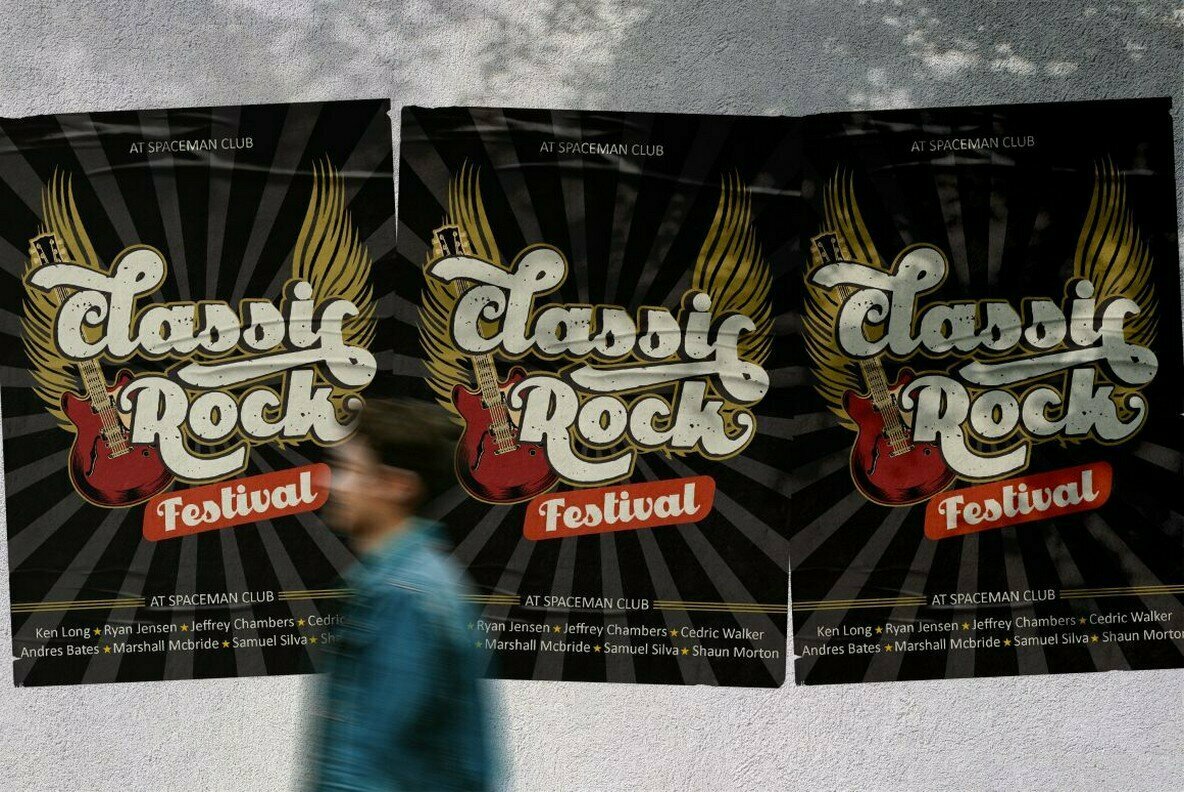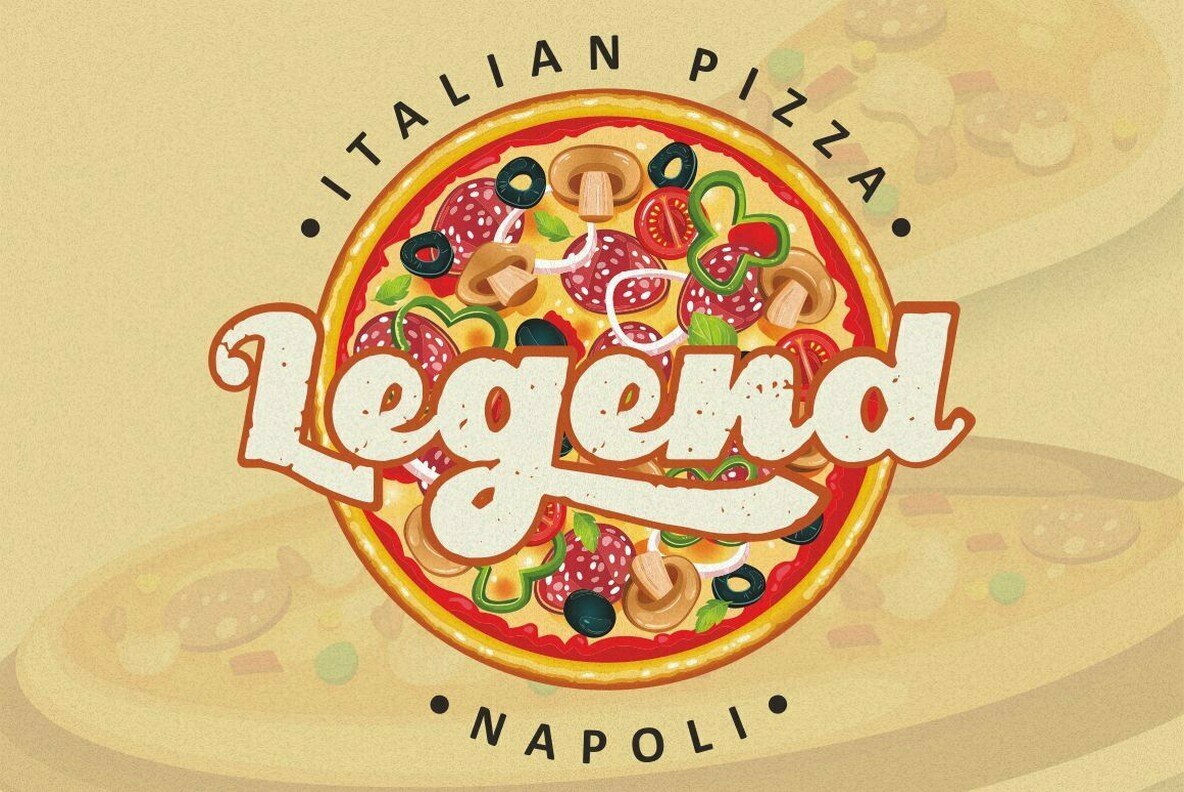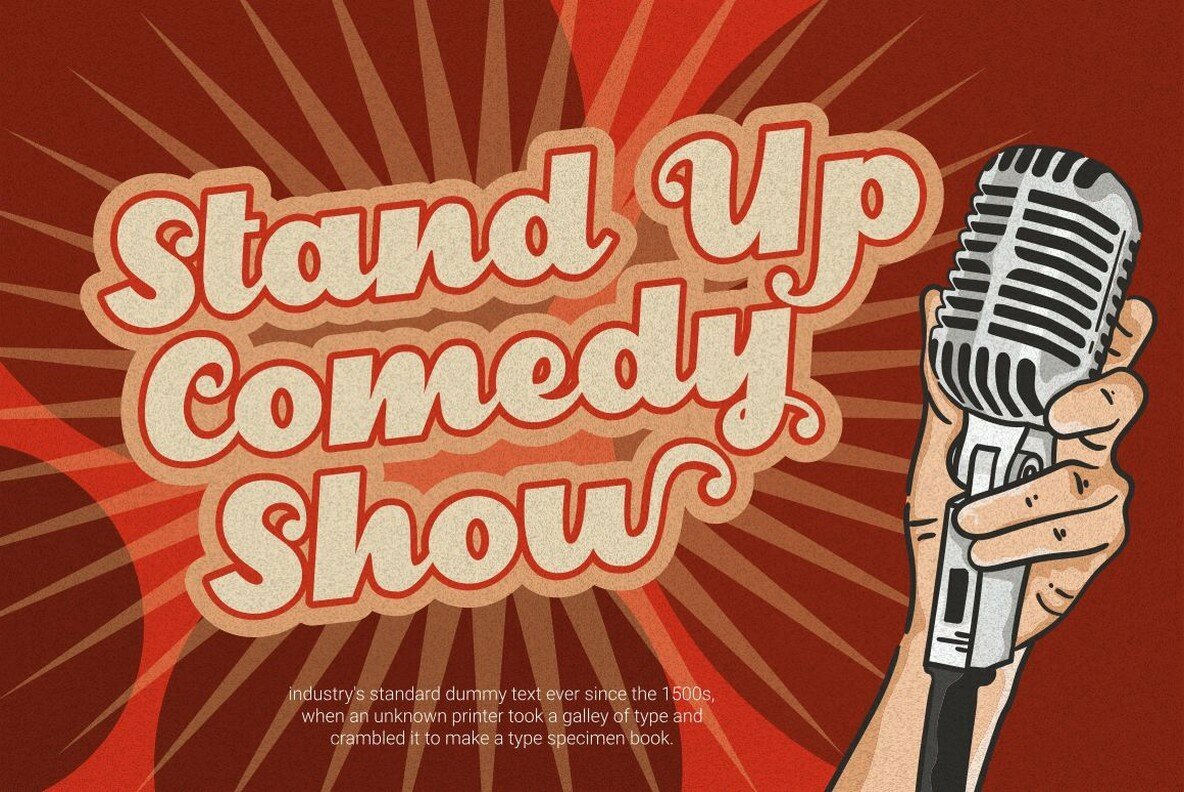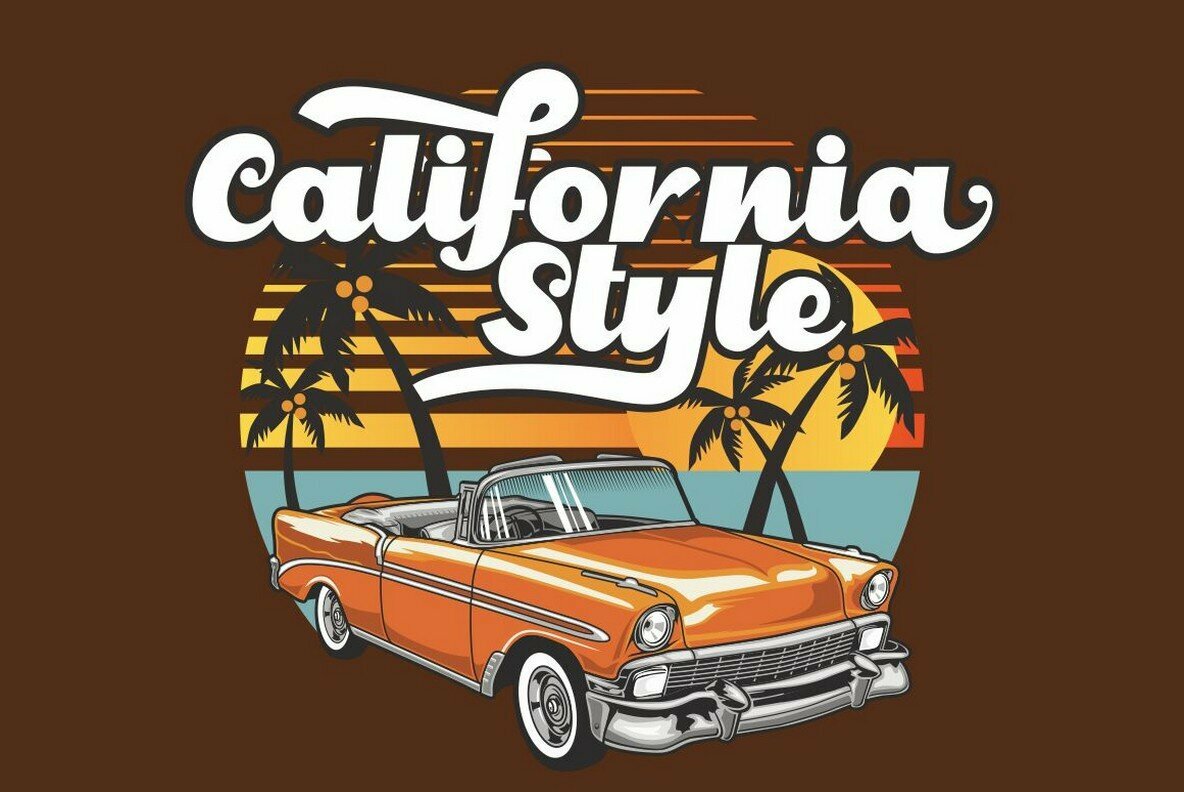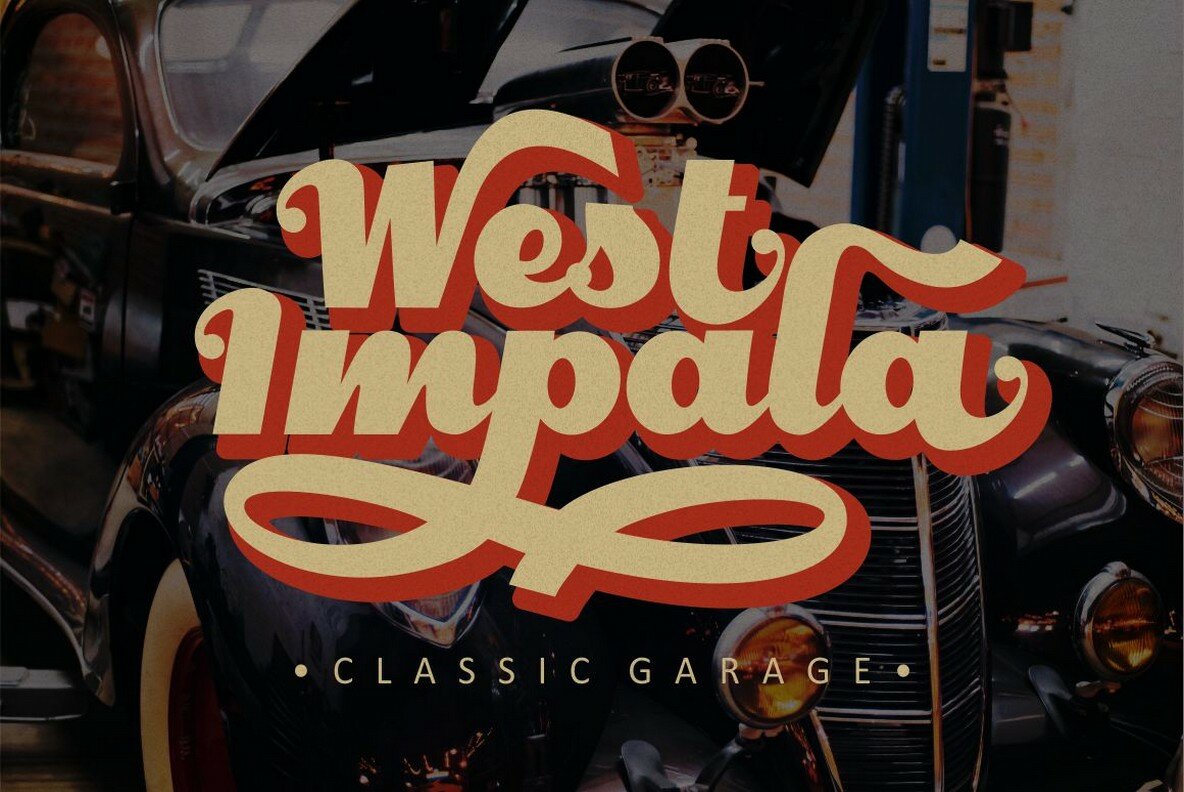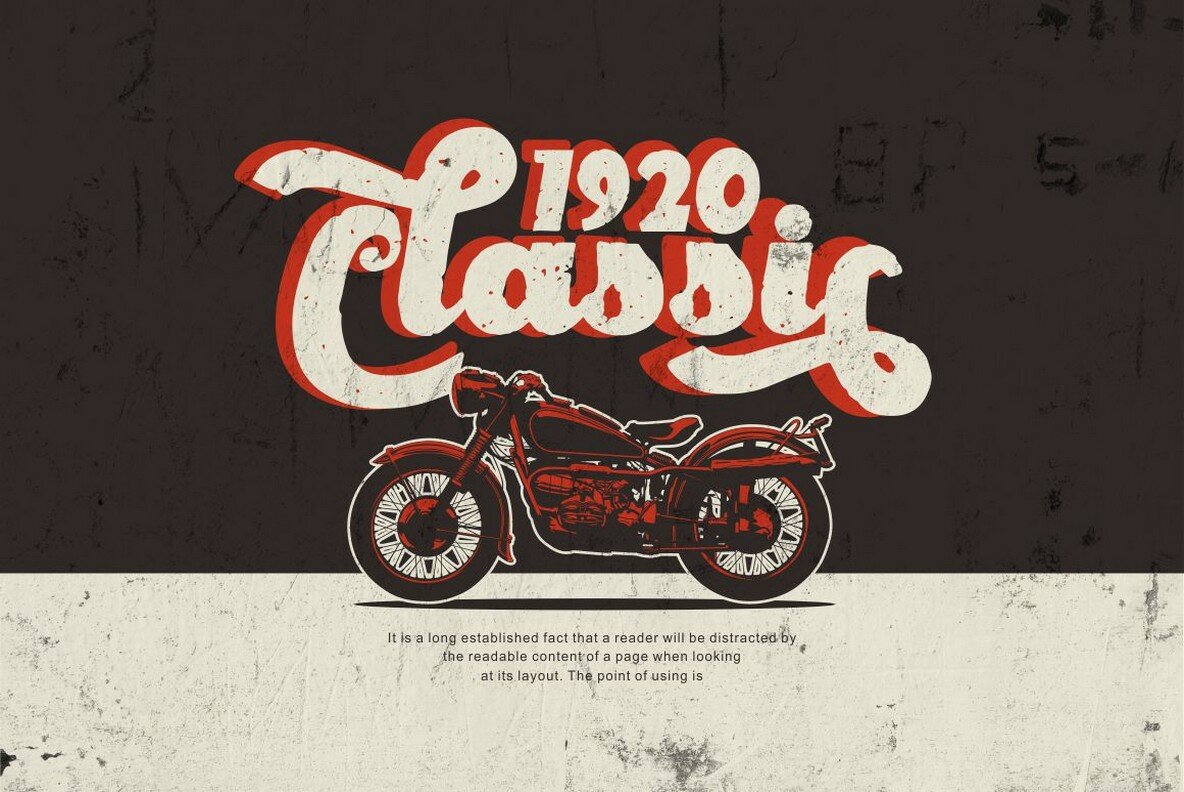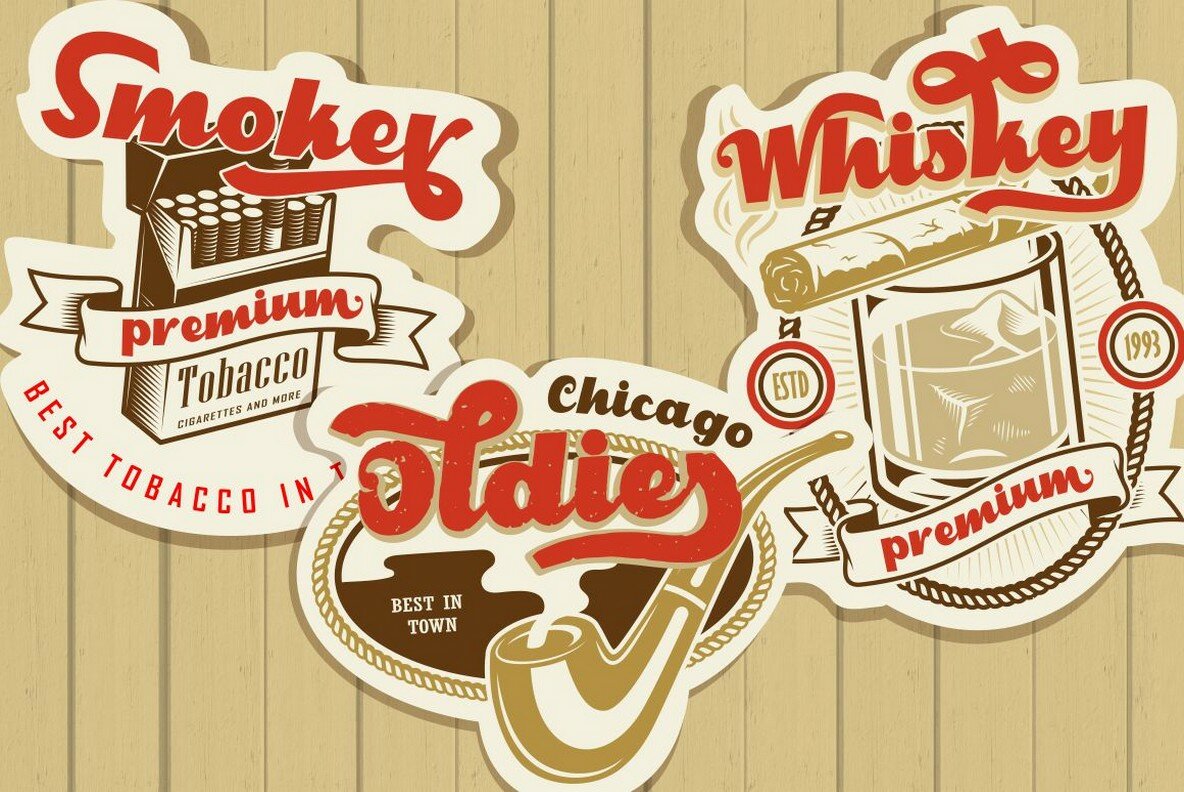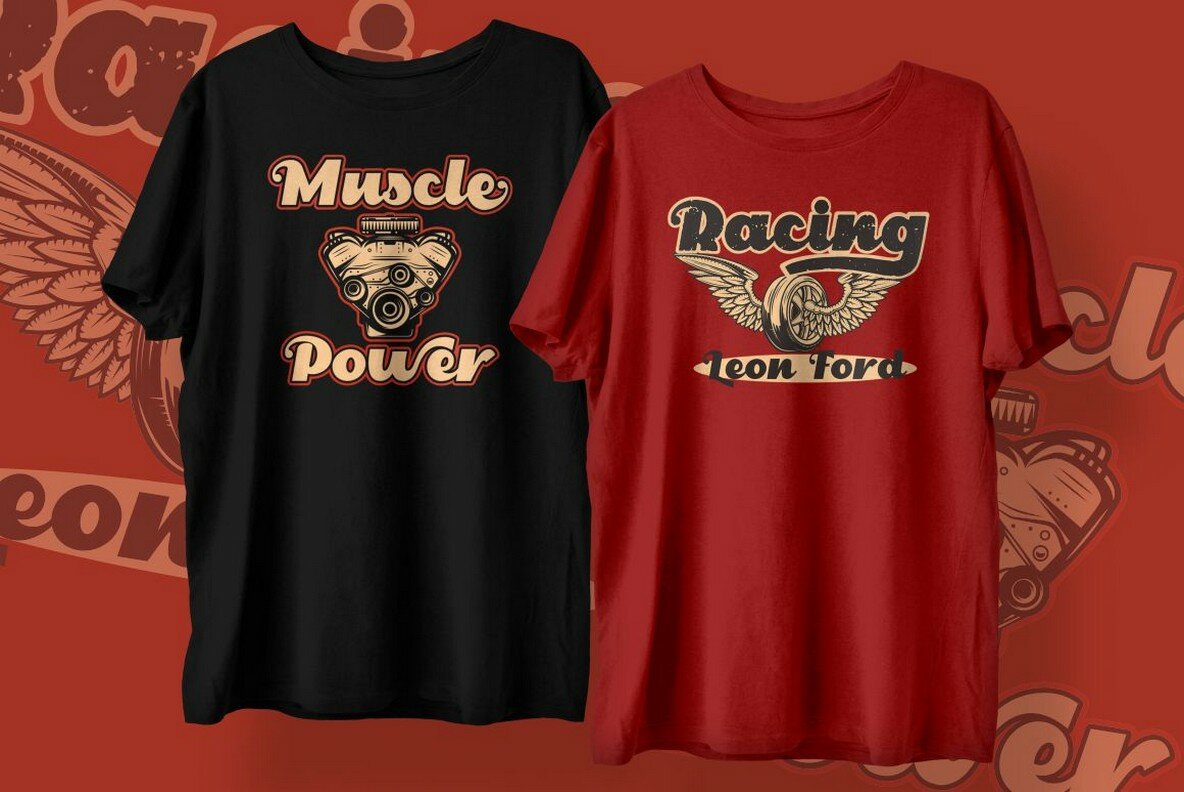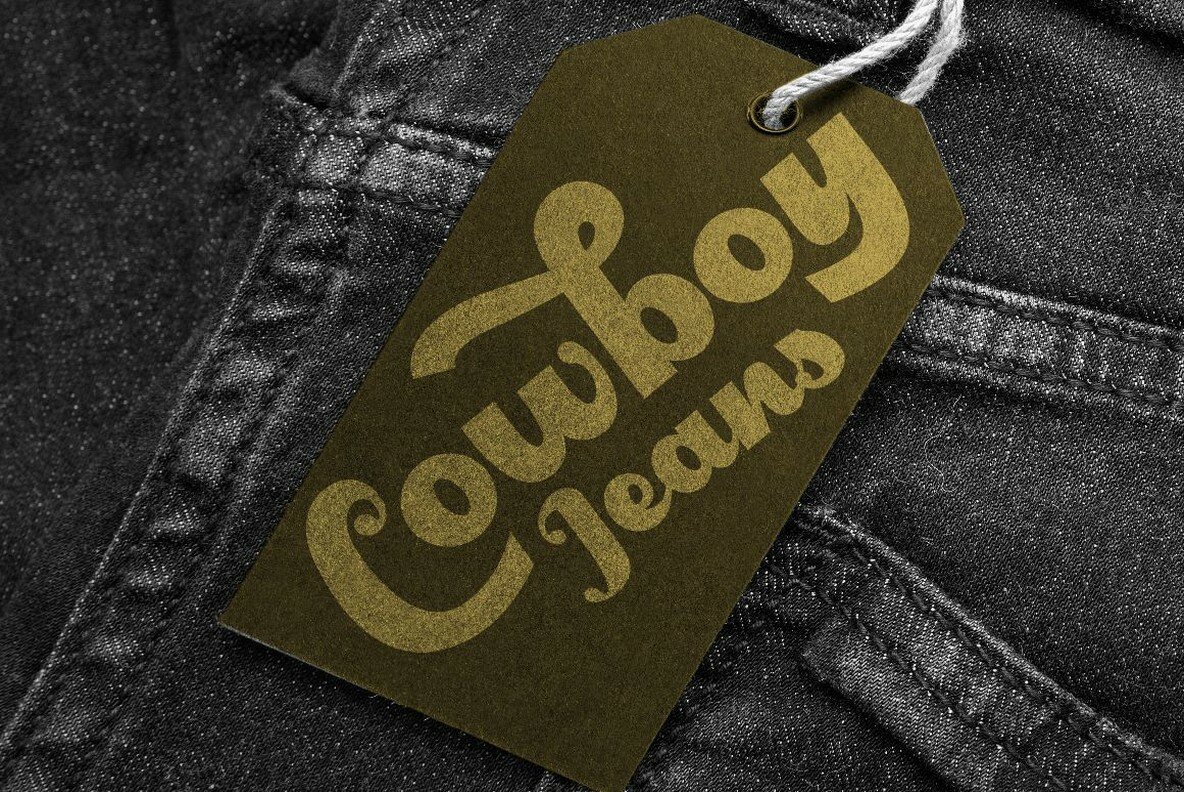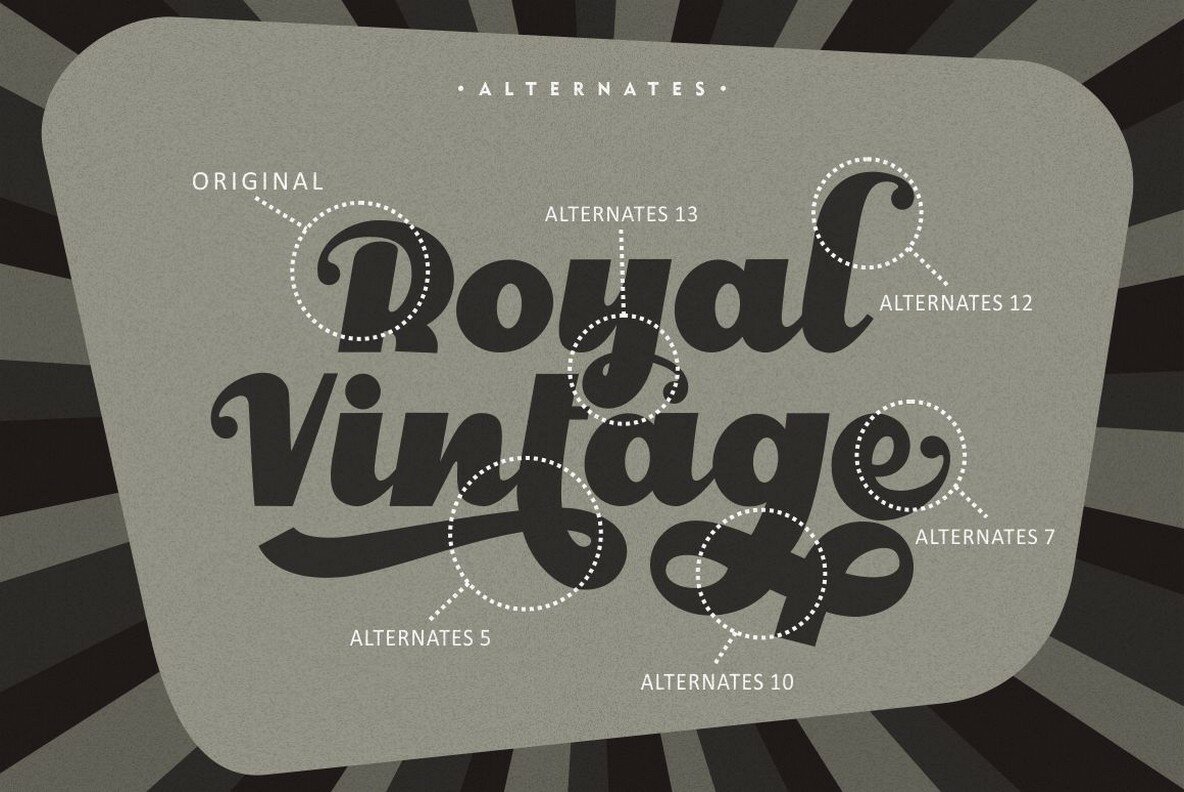
Royal Vintage Font
Royal Vintage channels the charm of retro typography, inspired by the distinctive lettering styles of the 70s and 80s. This bold script font is available in both clean and rough versions, perfect for those looking to capture a sense of nostalgia in their designs. The font is particularly suited for projects that require a vintage touch, such as badges, logos, t-shirts, posters, branding, packaging, signage, and book covers. Its retro flair brings a unique authenticity to any creative endeavor. Royal Vintage includes OpenType features with numerous alternates, facilitating exceptional lettering opportunities. Programs such as Adobe Illustrator CS and Adobe Photoshop CC support these features, allowing seamless integration into your projects.Royal Vintage: A Nostalgic Bold Script Font